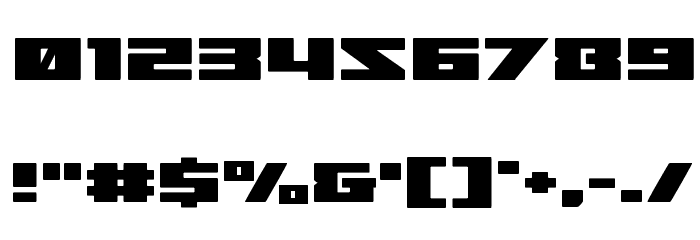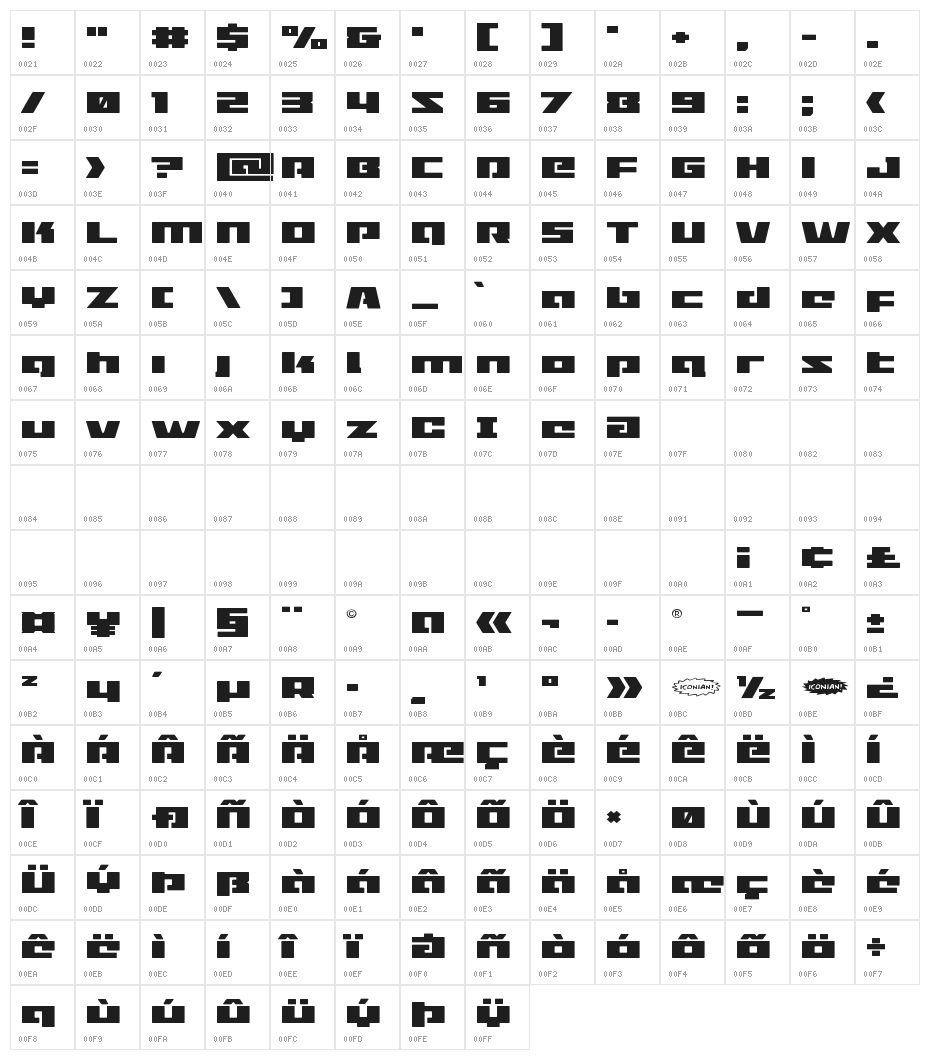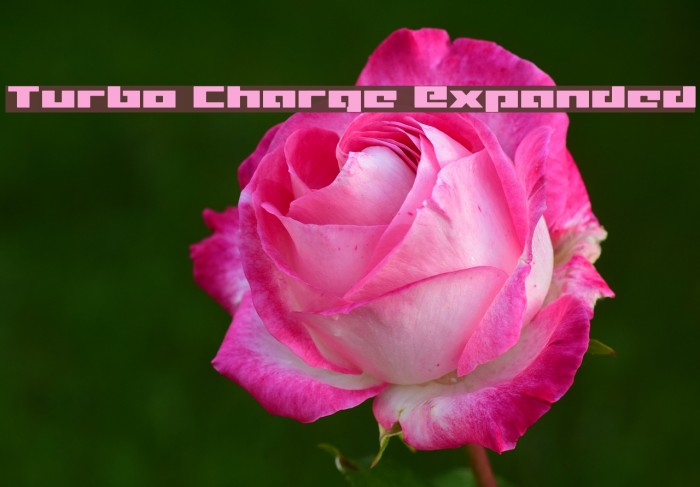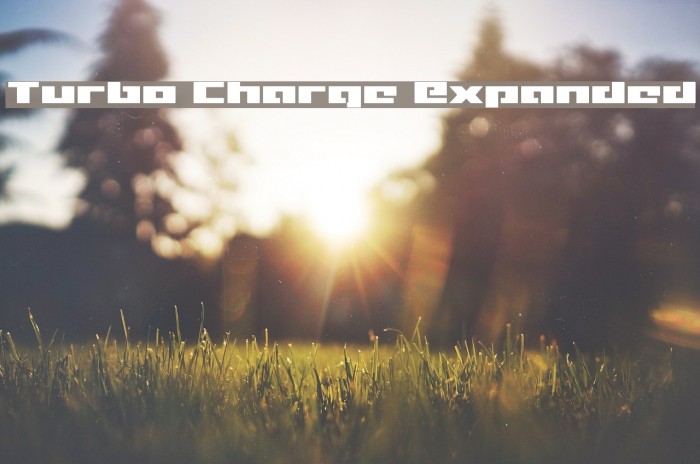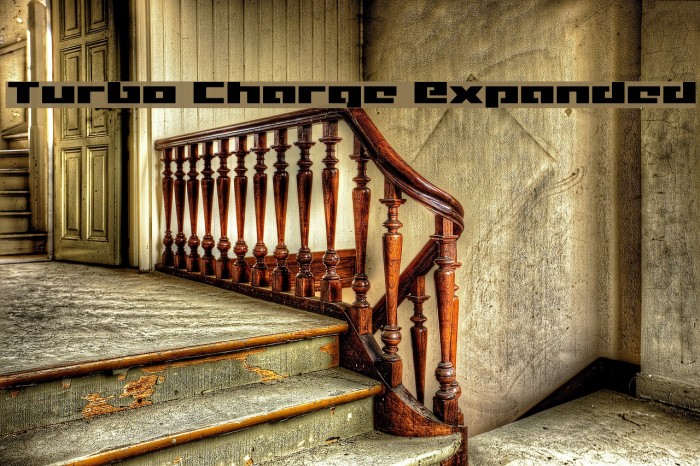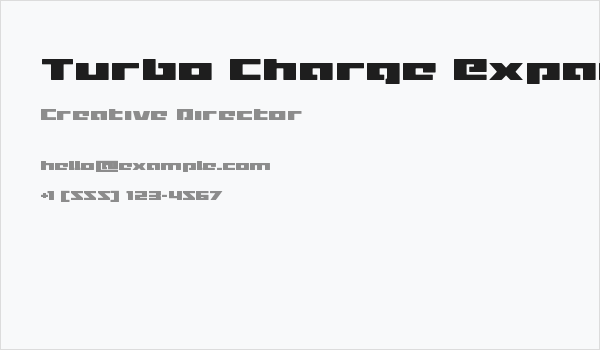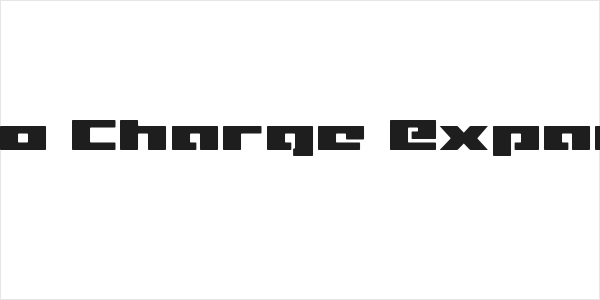
Turbo Charge Expanded Font
Turbo Charge Expanded Description
This font features a bold, geometric design with a futuristic and industrial aesthetic. The characters are constructed with thick, block-like forms that convey strength and modernity. Each letter and number is designed with sharp angles and a consistent width, creating a cohesive and impactful appearance. The uppercase and lowercase letters maintain a uniform style, while the numerals and special characters complement the overall design. This font's strong presence makes it ideal for attention-grabbing applications.
| Proposed Projects | Ideal for branding, posters, video game titles, and any project requiring a strong, modern look. |